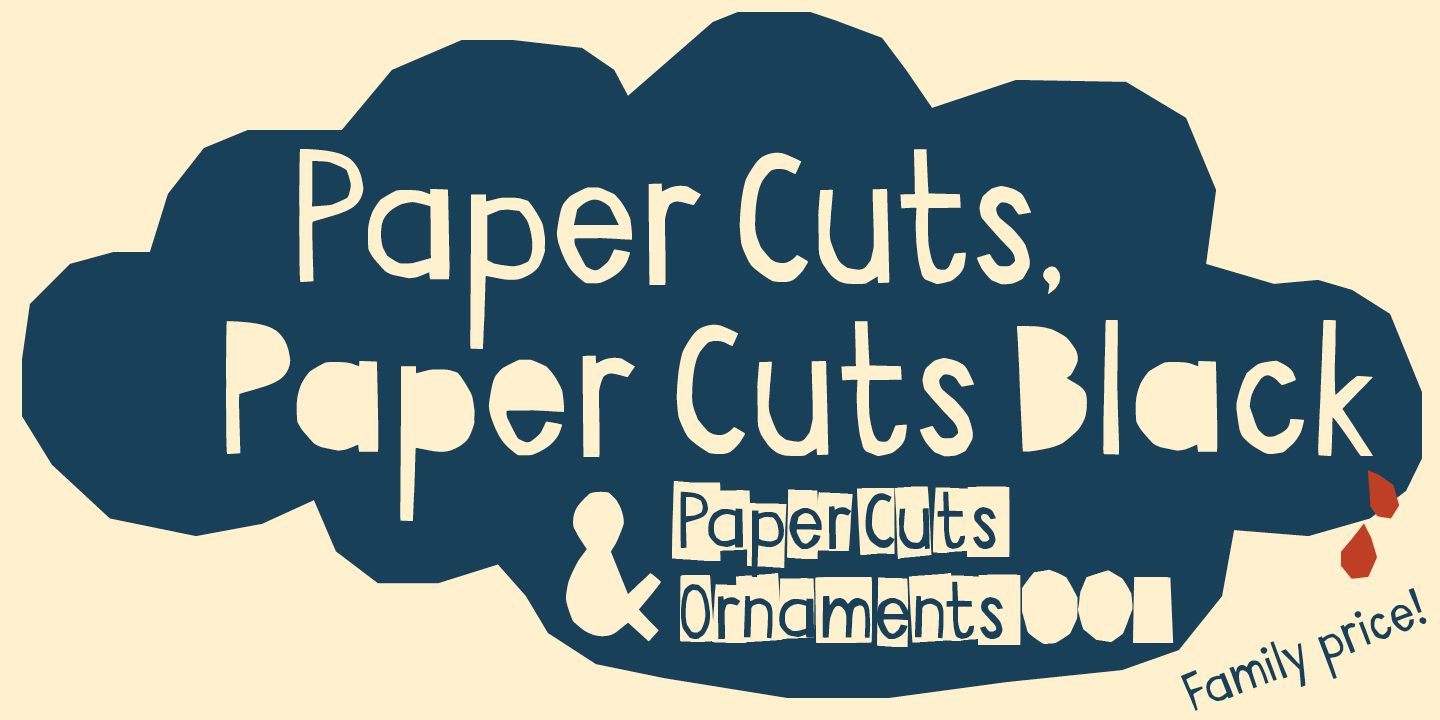
Paper Cuts Font is perfect for craft project designs, scrapbooking layouts, handmade product branding, DIY tutorial graphics, children's book illustrations, paper art exhibitions, creative workshop materials, and artisanal business logos. This distinctive typeface excels in projects requiring handcrafted authenticity and creative playfulness where artistic expression meets paper craft aesthetics.
What makes Paper Cuts Font exciting is its unique paper-cut inspired design that perfectly mimics the organic, irregular edges of hand-cut paper lettering. The font features charming imperfections and natural variations that capture the authentic feel of scissors meeting paper, creating a warm, handmade appearance that instantly conveys creativity and personal touch. Its artistic character makes it ideal for brands and projects celebrating craftsmanship and DIY culture.
Paper Cuts Font family includes various weights and stylistic alternatives that enhance its handcrafted appeal and provide design flexibility. The family typically offers regular and bold variations, along with decorative elements, paper-inspired symbols, and craft-themed dingbats that complement scrapbooking and paper art design themes perfectly.
Whether you're designing craft supply packaging, creating DIY blog graphics, or developing artisan marketplace branding, Paper Cuts Font Free Download provides the perfect handmade solution for projects demanding authentic craft appeal. This font's artistic charm and handcrafted personality make it essential for connecting with audiences who appreciate creativity and handmade aesthetics.
The organic edges and authentic imperfections of Paper Cuts Font create a genuine handcrafted experience that adds warmth and personality to digital designs. Its unique character and craft-inspired details make it an invaluable tool for designers working in the creative, educational, and artisanal sectors. Download Paper Cuts Font today and bring the authentic charm of paper craft artistry to your creative projects with this delightfully handmade typeface.